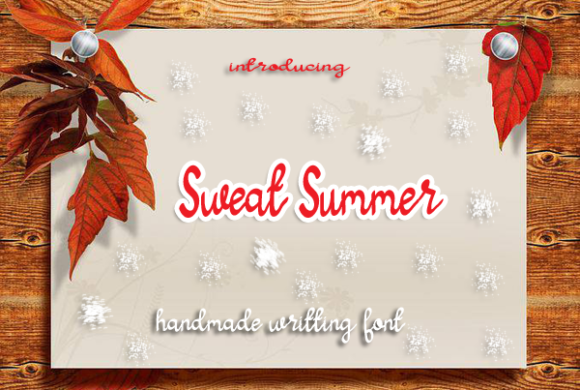
Sweat Summer Font
About Sweat Summer Font
Sweat summer is a natural and cute handwritten font. Cursive and elegant, this typeface is a great choice for each of your creative projects that need simple, authentic typography.